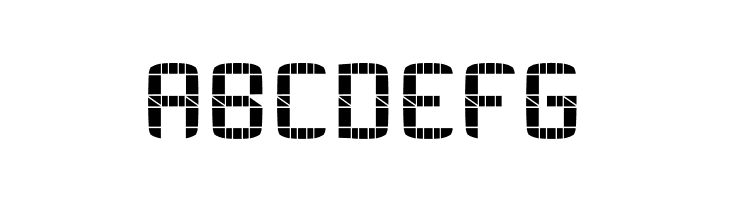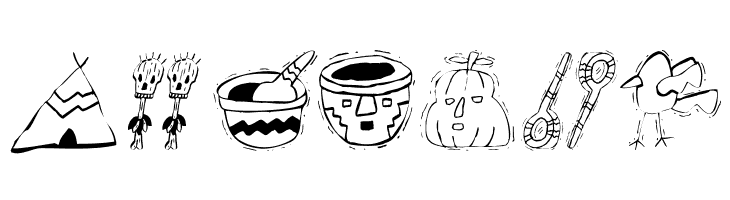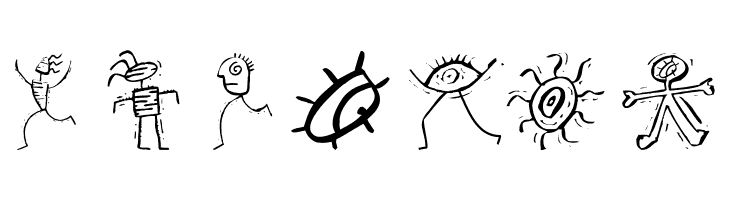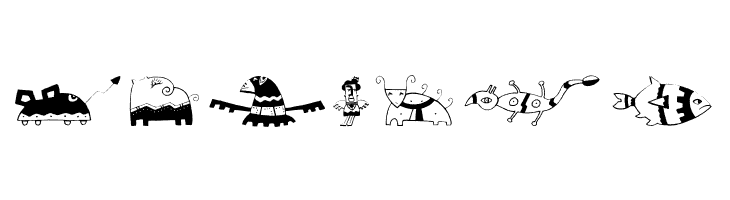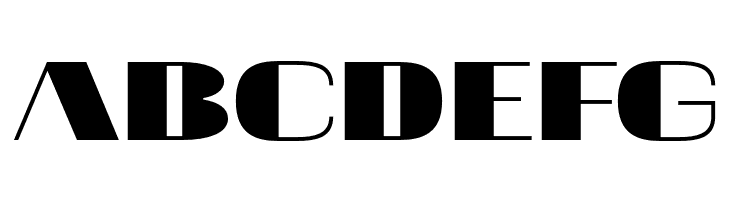
• 20db
A bold, high-contrast font with a modern and dynamic style.
• 20SEVEN
A bold, geometric font with a segmented, digital appearance.
• 20thCentury-Three
A decorative font featuring abstract and whimsical illustrations.
• 20thCenturyArt01
A collection of whimsical and abstract illustrations, not a traditional font.
• 20thCenturyTwo
A playful collection of doodle-like illustrations with a whimsical, childlike style.
• 212 Baby Girl
A playful, rounded font with a friendly and approachable style.
• 212 Boys Stuff
A decorative icon font with bold, playful silhouettes representing diverse objects and activities.
• 212 Dreamery Sans Demo
A playful, handwritten-style font with smooth, rounded strokes.
• 212 Girly Stuff
A decorative icon font with feminine and playful motifs.
• 212 Leahlee Sans
A playful, handwritten font with smooth, flowing strokes and a casual style.